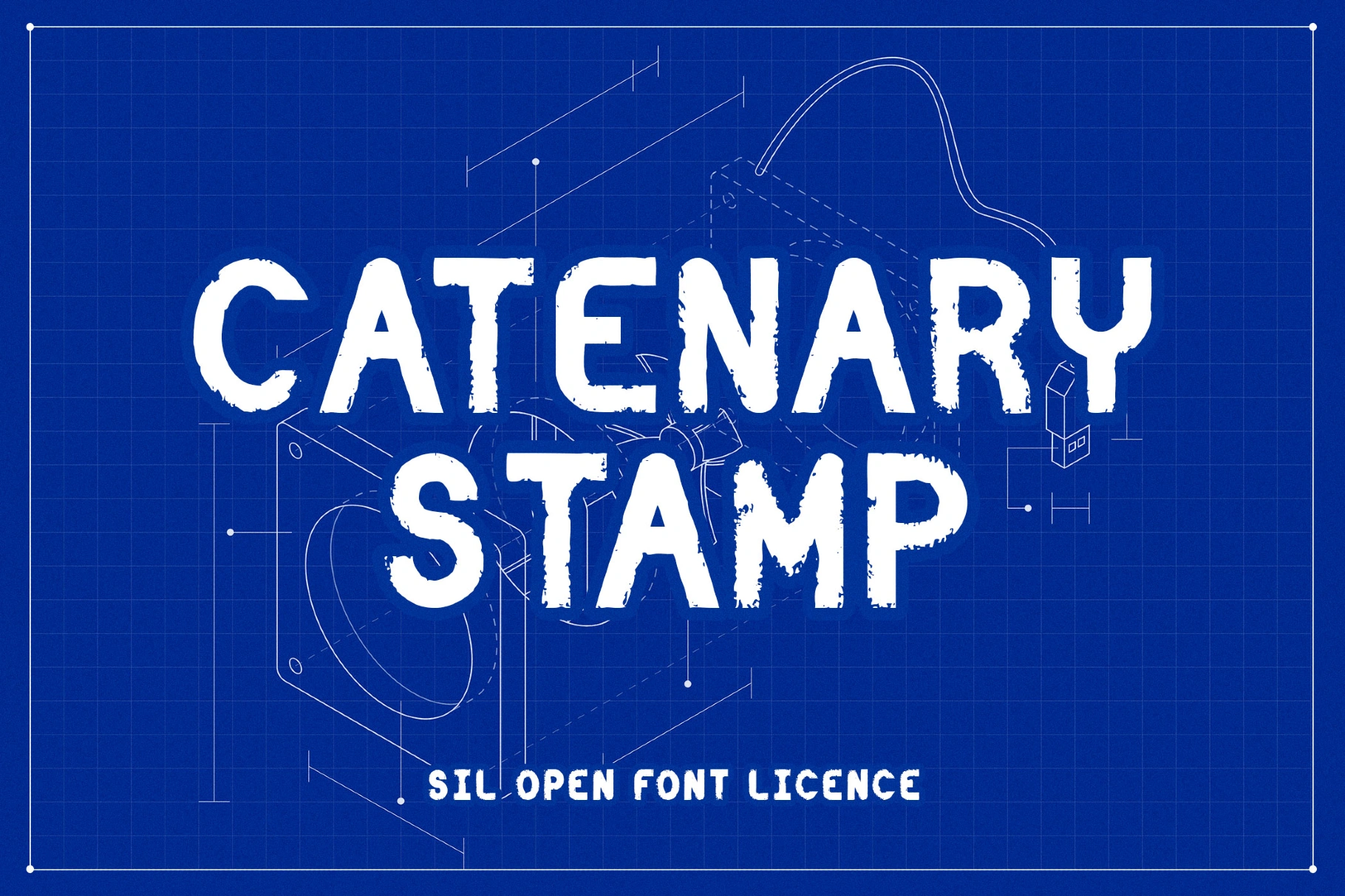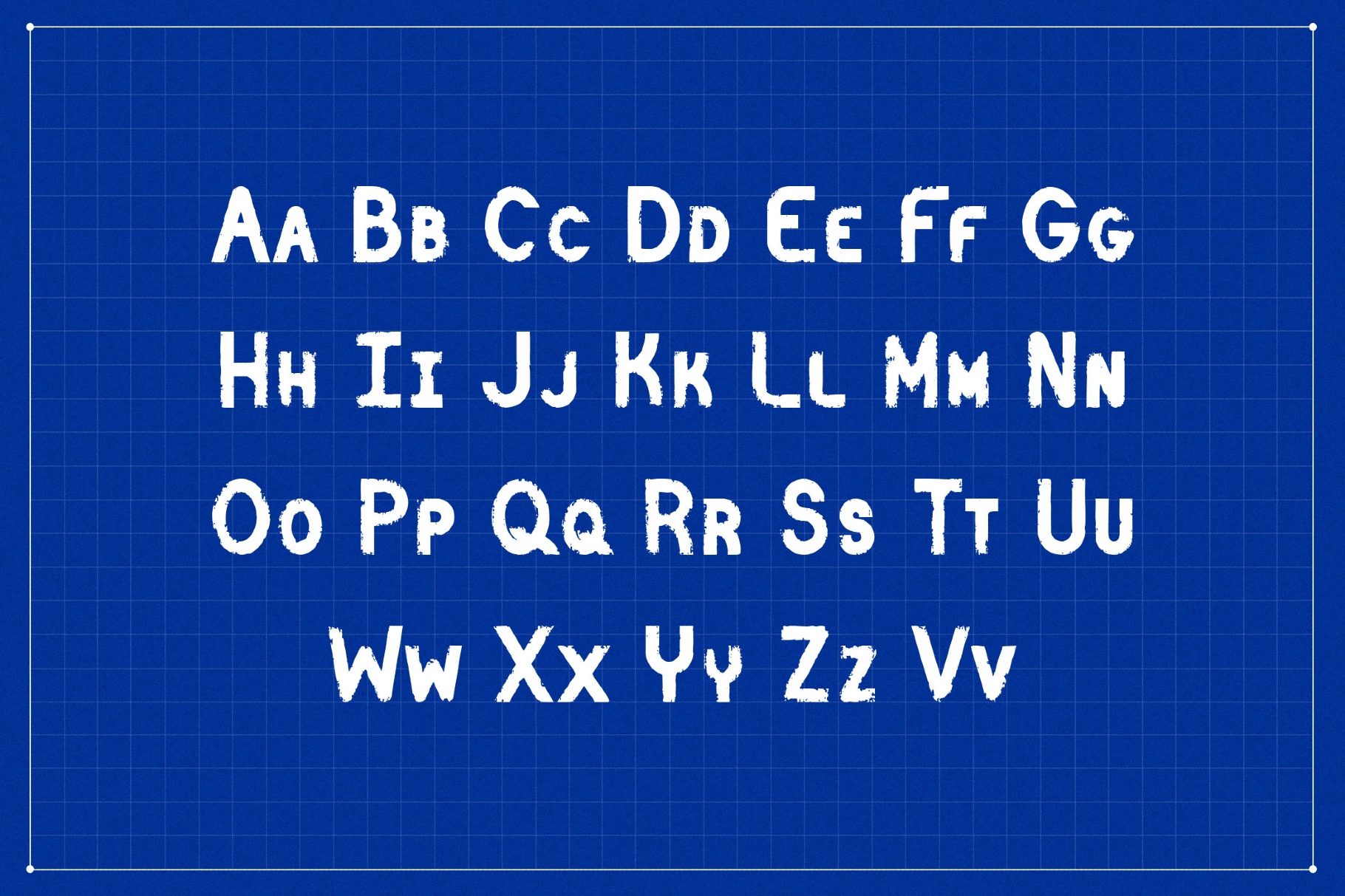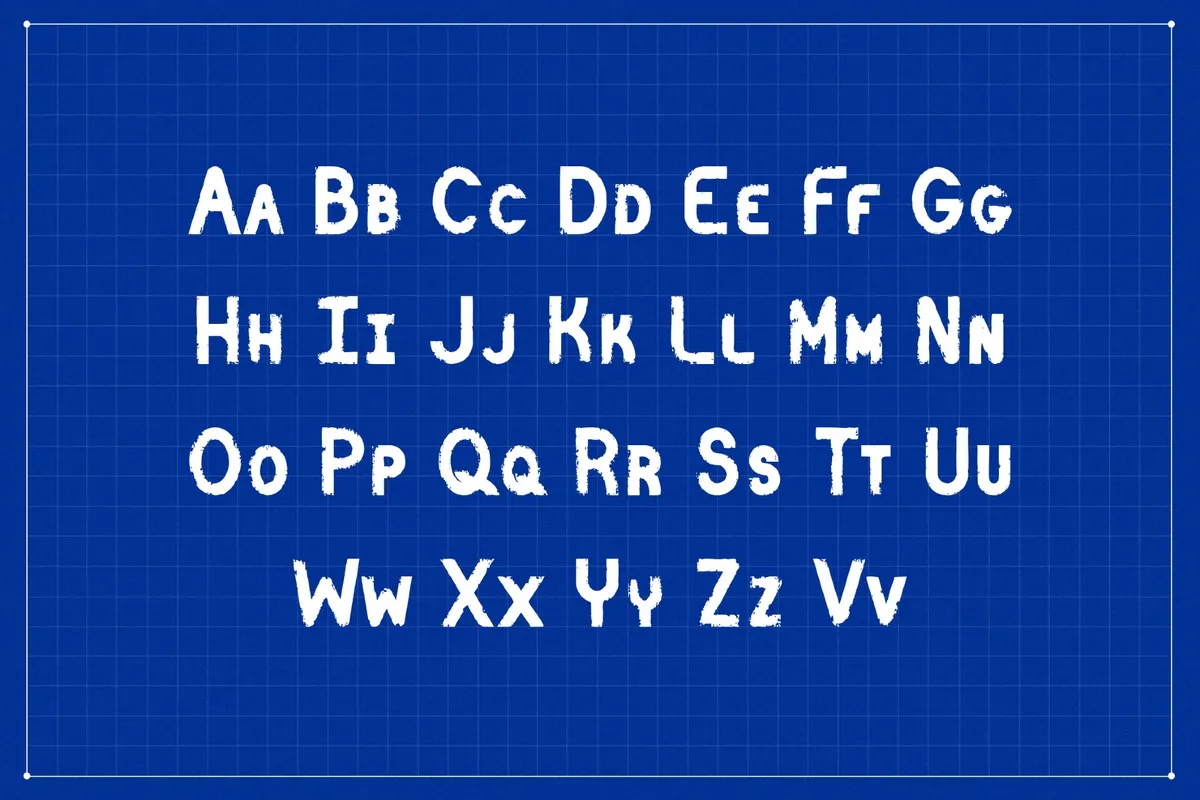
Catenary Stamp Font
Catenary Stamp is an inked poster type with worn edges and uneven pressure. Its rugged texture is lifted from freight crate stencils and mid-century engineering drawings. You'll find it well-suited for packaging badges, headlines, brewery and coffee branding, editorial pull quotes, gig flyers, signage, and apparel prints.
- Uppercase and lower uppercase letters.
- Numbers, punctuation, dingbats, and symbols.
- Multilingual support across extended Latin, Cyrillic, and Greek scripts.